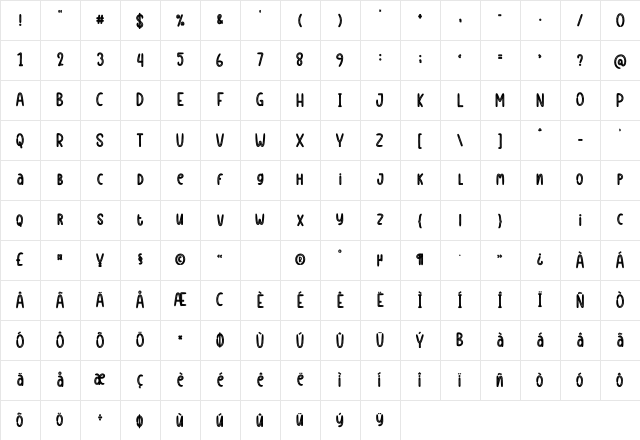
Stikers Regular
Design Context for Stikers
Stikers is a composed and adaptable typeface that performs quietly and consistently across a wide range of design contexts.
Pro Tip: Use Stikers in both headline and body roles to test its range before committing to a single application.